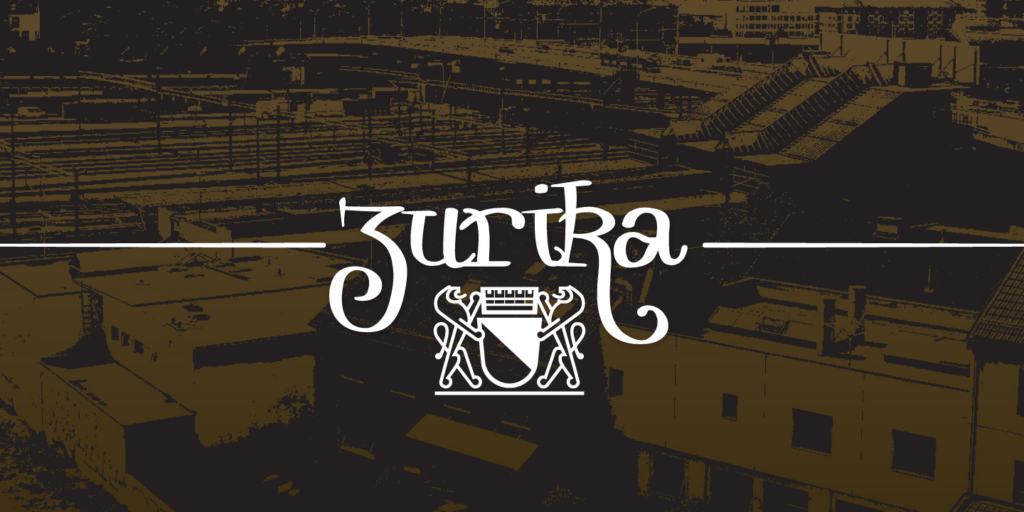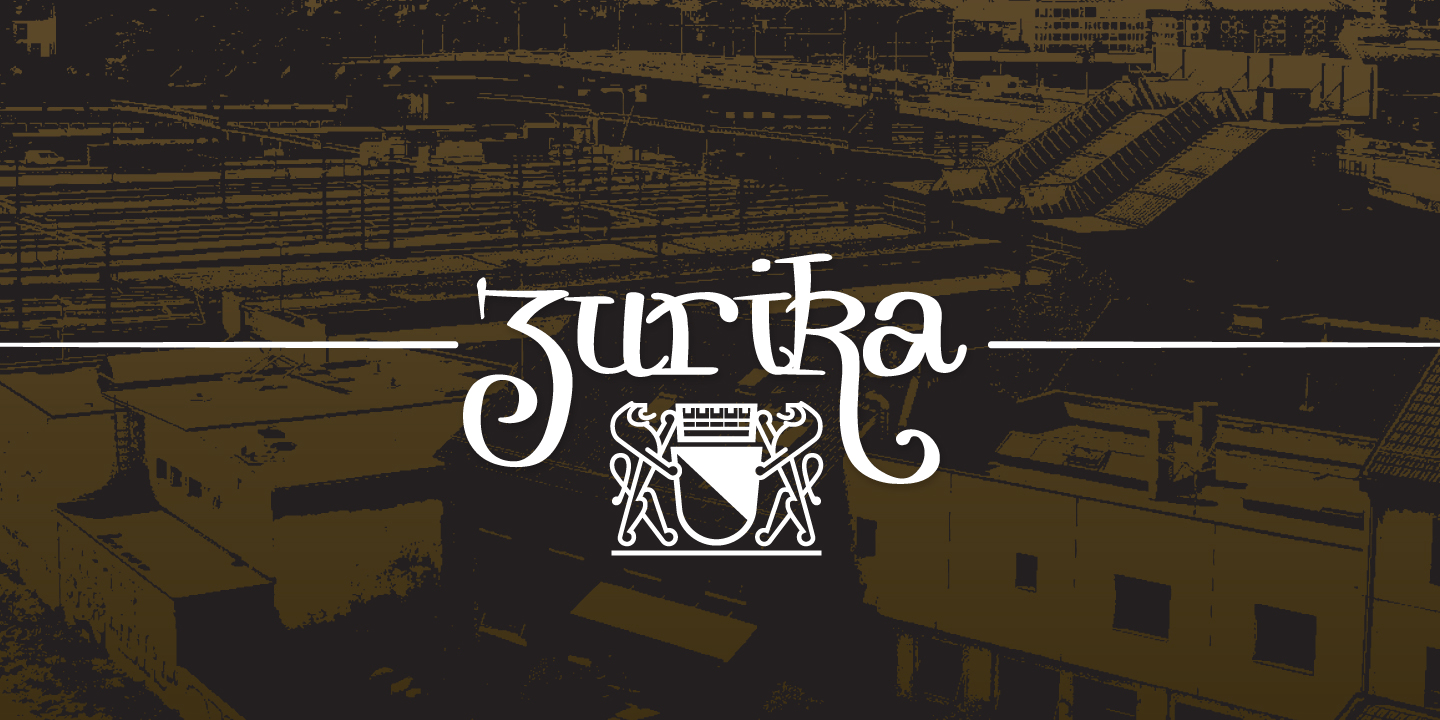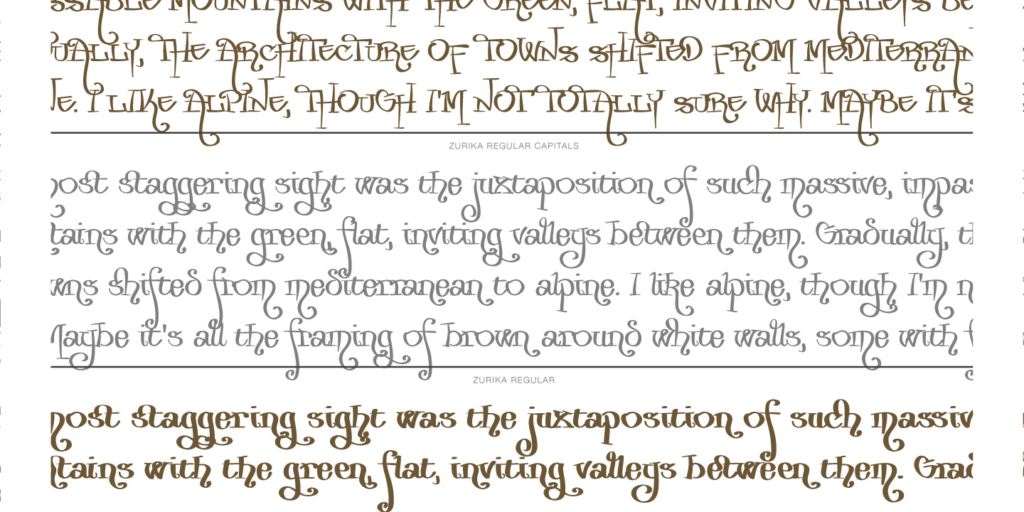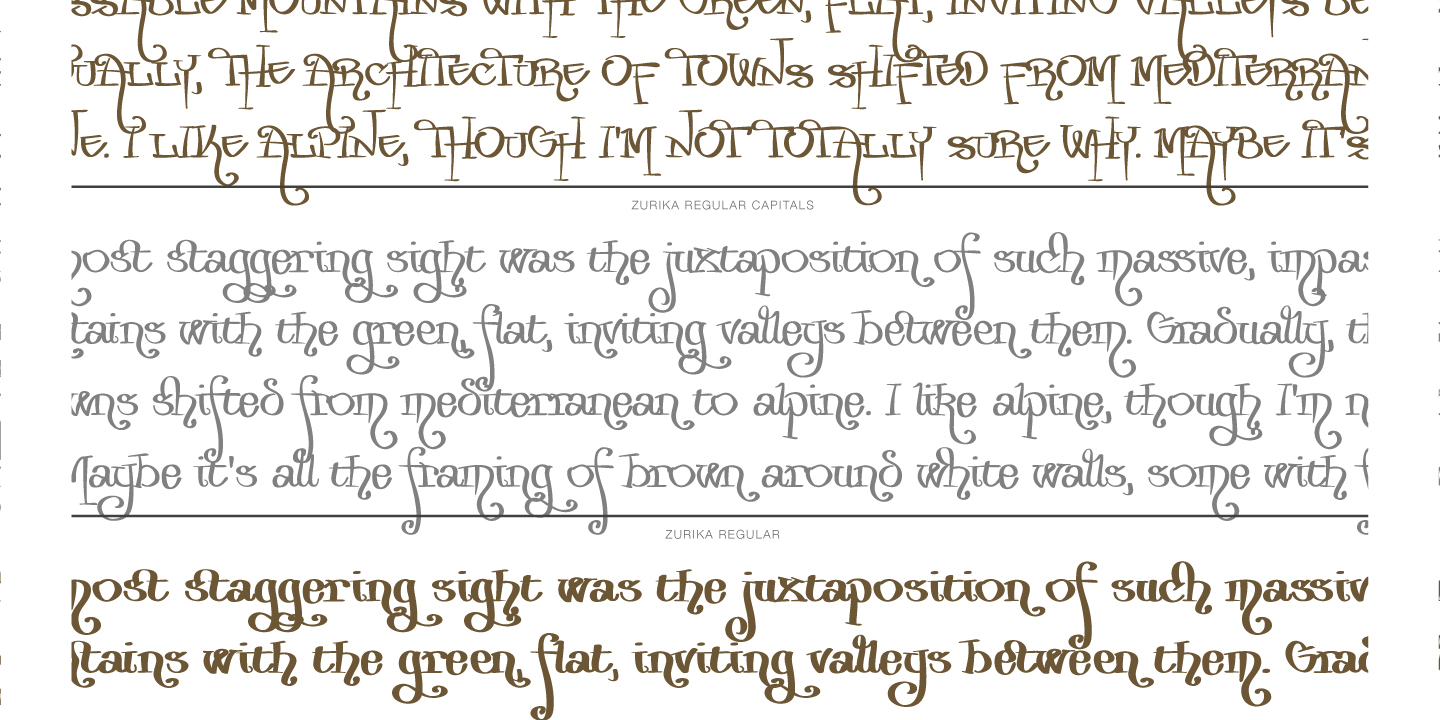
About Zurika
The Zurika typeface was inspired by some lettering that I saw on a bar wall in the swiss city of Zurich. Far from the regular, boring script style most of the boards feature, on this occasion, the bar obviously had an inspired employee who had drawn a…